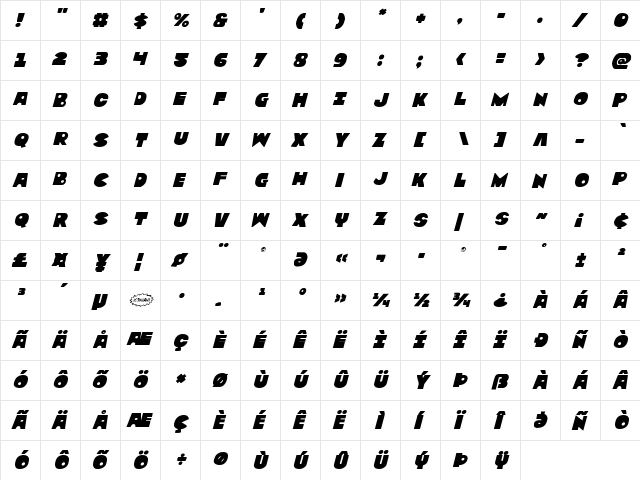
Zounderkite Italic Italic
Design Context for Zounderkite Italic Typeface
Zounderkite Italic is a composed and adaptable typeface that performs quietly and consistently across a wide range of design contexts. The dynamic lean of this cut emphasises speed and emphasis in any layout.